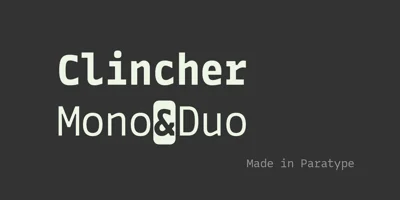
Clincher Font
Clincher Font is ideal for sales presentation headers, persuasive marketing campaigns, powerful call-to-action buttons, winning proposal documents, competitive business pitches, closing argument materials, decisive brand messaging, and high-impact advertising copy.
This font is exciting because it delivers uncompromising visual impact with bold, authoritative letterforms that command attention and drive immediate action from viewers. The Clincher Font embodies the decisive moment when persuasion transforms into conversion, making every word feel like a compelling argument that seals the deal and achieves breakthrough results.
The Clincher Font family features persuasive variations including Regular, Bold, Heavy, Impact, Italic, Condensed, Extended, and Victory versions, providing sales and marketing professionals with comprehensive typography tools to create irresistible communications that convert prospects into customers and drive measurable business success.
Seal every deal with Clincher Font that transforms ordinary text into persuasive powerhouse communications. This compelling typeface combines psychological impact with professional functionality, making it perfect for sales teams, marketing agencies, and business leaders focused on achieving breakthrough results. The font's commanding character design ensures your message cuts through noise while maintaining excellent readability across all platforms. Whether you're creating sales presentations, developing conversion-focused marketing materials, or designing proposals that win contracts, Clincher Font delivers the decisive typography that turns browsers into buyers and prospects into loyal customers. Its versatile design works effectively across digital and print media while preserving the persuasive power that makes business communications genuinely compelling and results-driven in competitive marketplace environments.